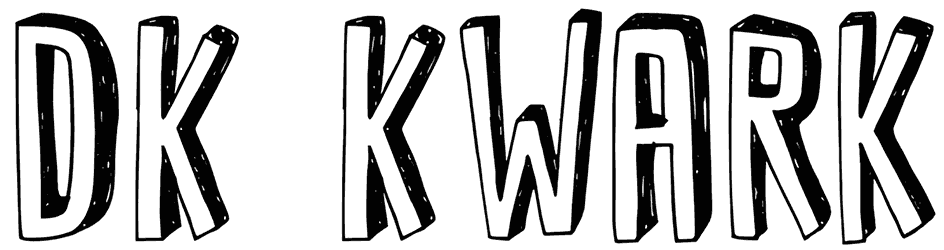
DK Kwark Font
DK Kwark font comes with two versions of uppercase without lowercase letters. With its dark shadows, it adds your design a vintage style, great to use in website and game graphics.
The shadow font comes in handy for branding and designing a variety of labels. This scrapbook font might look common, but surprisingly, it is great to use in enterprising designing, and every message needs boldness and power.